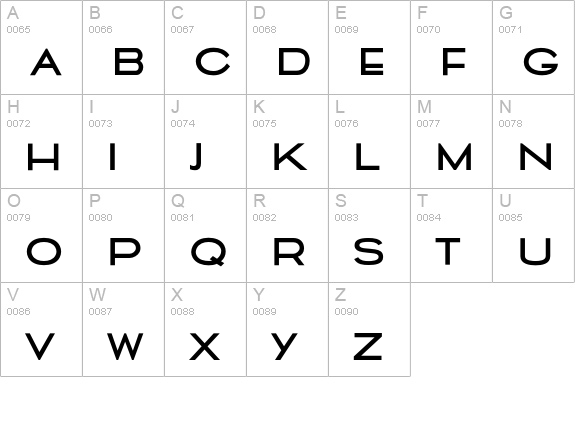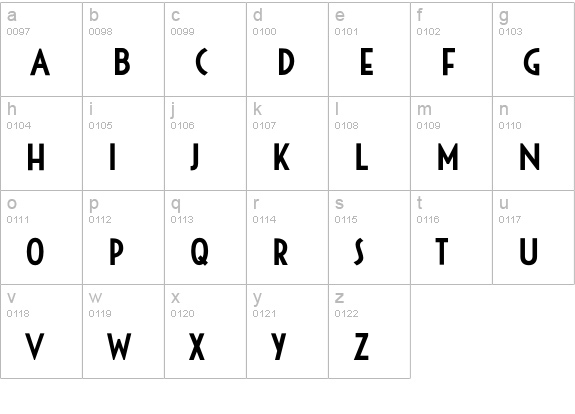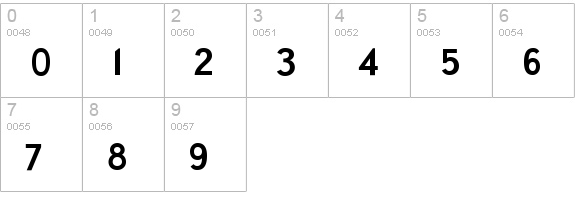
CassandraEF-Bold Font Details
CassandraEF-Bold is a strong, high-contrast variant in the CassandraEF typeface family \xE2\x80\x94 well suited to headlines, attention-grabbing titles, and strong calls-to-action.
CassandraEF-Bold is a modern and stylish font that exudes confidence and sophistication. With its bold and impactful design, this typeface is perfect for creating eye-catching headlines, titles, and branding materials. The strong and commanding presence of CassandraEF-Bold makes it ideal for projects that require a bold statement. What sets CassandraEF-Bold apart is not only its striking appearance but also the fact that it is freely available to download at FontsMarket.com. This means that you can easily access this premium font without any cost, making it a valuable addition to your design toolkit. Whether you are working on a professional project or a personal creative endeavor, CassandraEF-Bold will elevate your designs and leave a lasting impression on your audience.